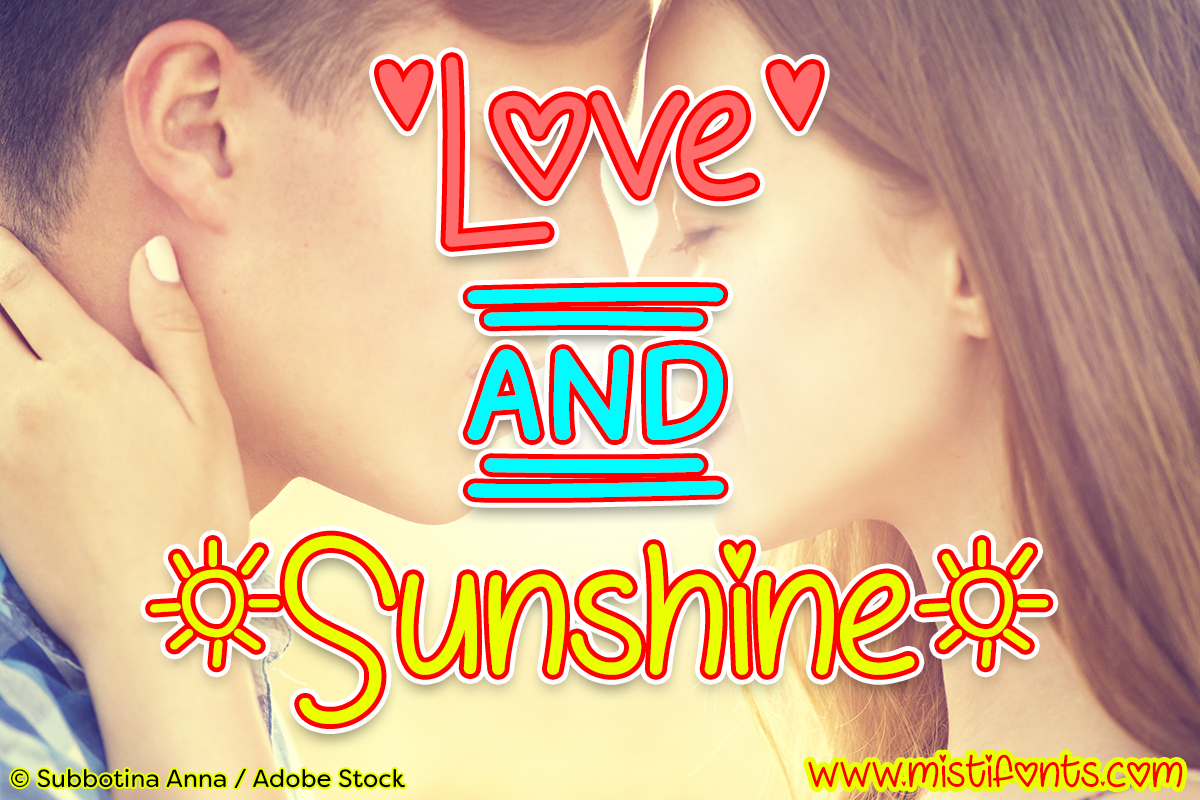
Love and Sunshine Font
About Love and Sunshine Font
Love and Sunshine is a happy handwritten font that is perfect for your craft and design projects!
Contains unique special Symbols
Type * (asterisk) for the heart
Type | (vertical bar) for the sun